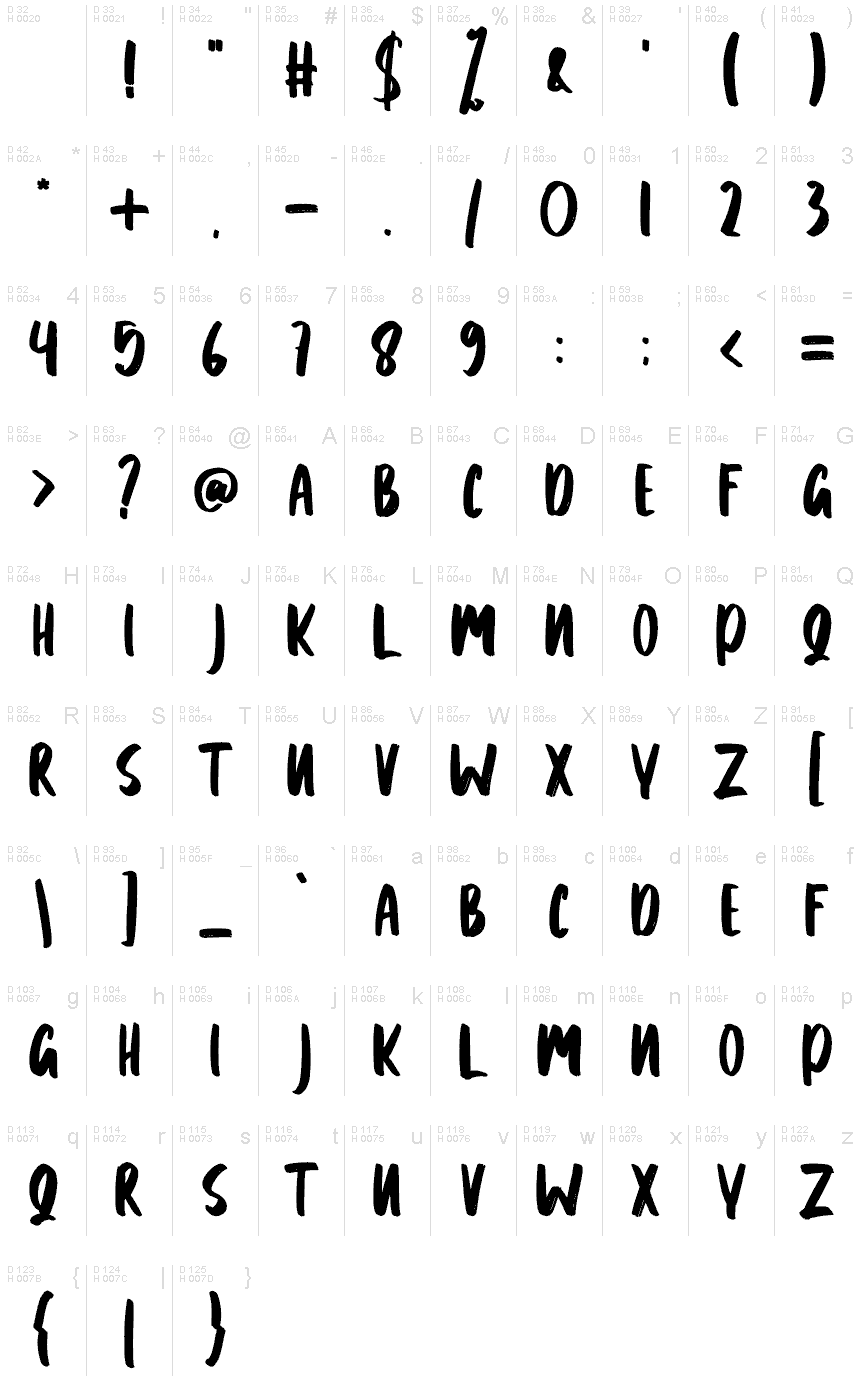
Zombies
Zombies font by Skiiller Studio takes a textured and detailed approach to creating visually engaging typography. The bold brush font has a hand-drawn quality, energetic presence, and modern appeal. It is designed in a naturally condensed width which makes it expressive yet resource-saving when used in typographic applications.
The free brush display font is suitable for posters, magazine covers, movie or game title designs with horror themes. More applications include greeting cards, invitation cards, social media posts or stories, web pages design (e.g., landing pages), packaging design labeling as well as blogging websites and branding.